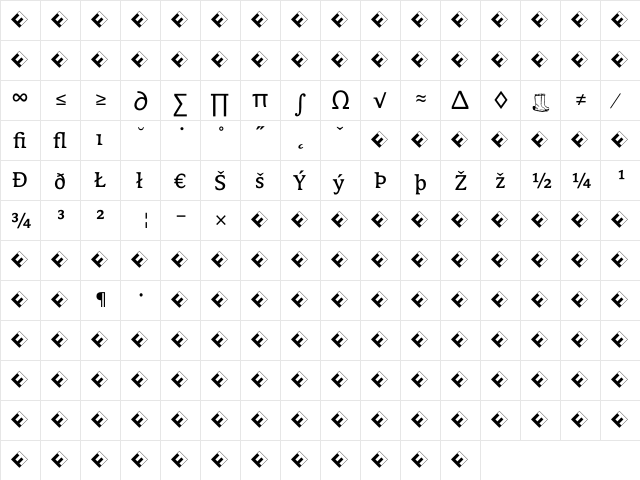
Avance Regular Exp
Design Context for Avance Typeface
Avance offers clean, dependable letterforms without strong stylistic allegiance, making it a practical choice for designers who need flexibility.